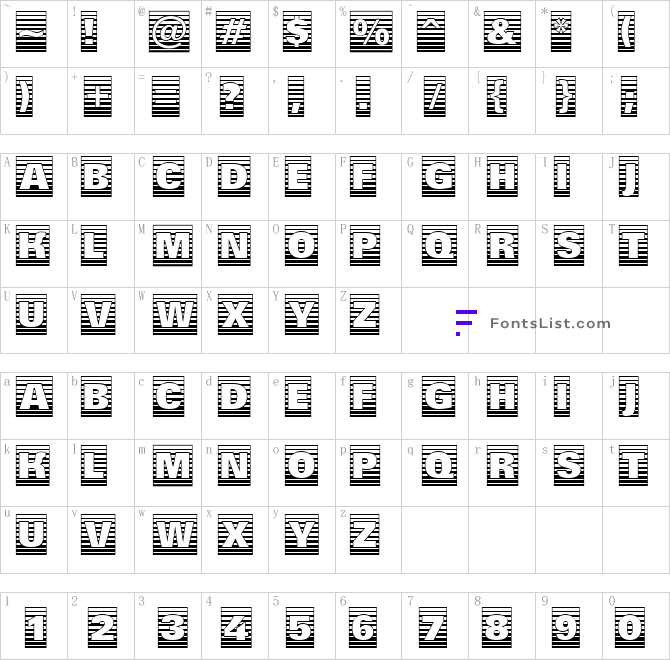
a_GroticTtlCmGdStrHv.ttf is a very beautiful artistic font, a_GroticTtlCmGdStrHv.ttf is widely used in the design and printing of various books and pictures,a_GroticTtlCmGdStrHv.ttf has a strong visual impact,a_GroticTtlCmGdStrHv.ttf is a commonly used font in newspapers, magazines and books, and is used in posters, e-commerce Poster design, store design, logo design, font design and other fields.a_GroticTtlCmGdStrHv.